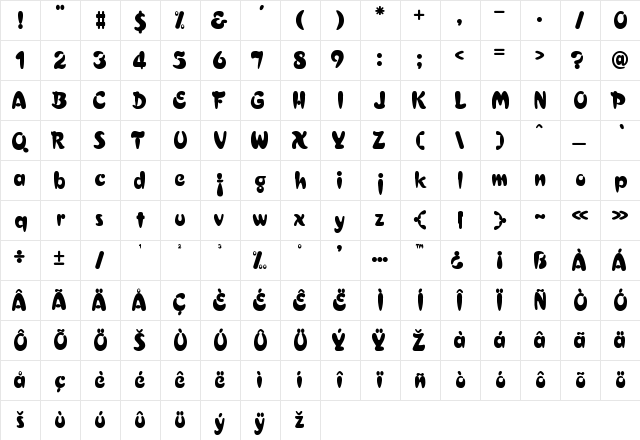
AC Normal Free Font
AC Normal
Design Context for AC
AC is a composed and adaptable typeface that performs quietly and consistently across a wide range of design contexts.